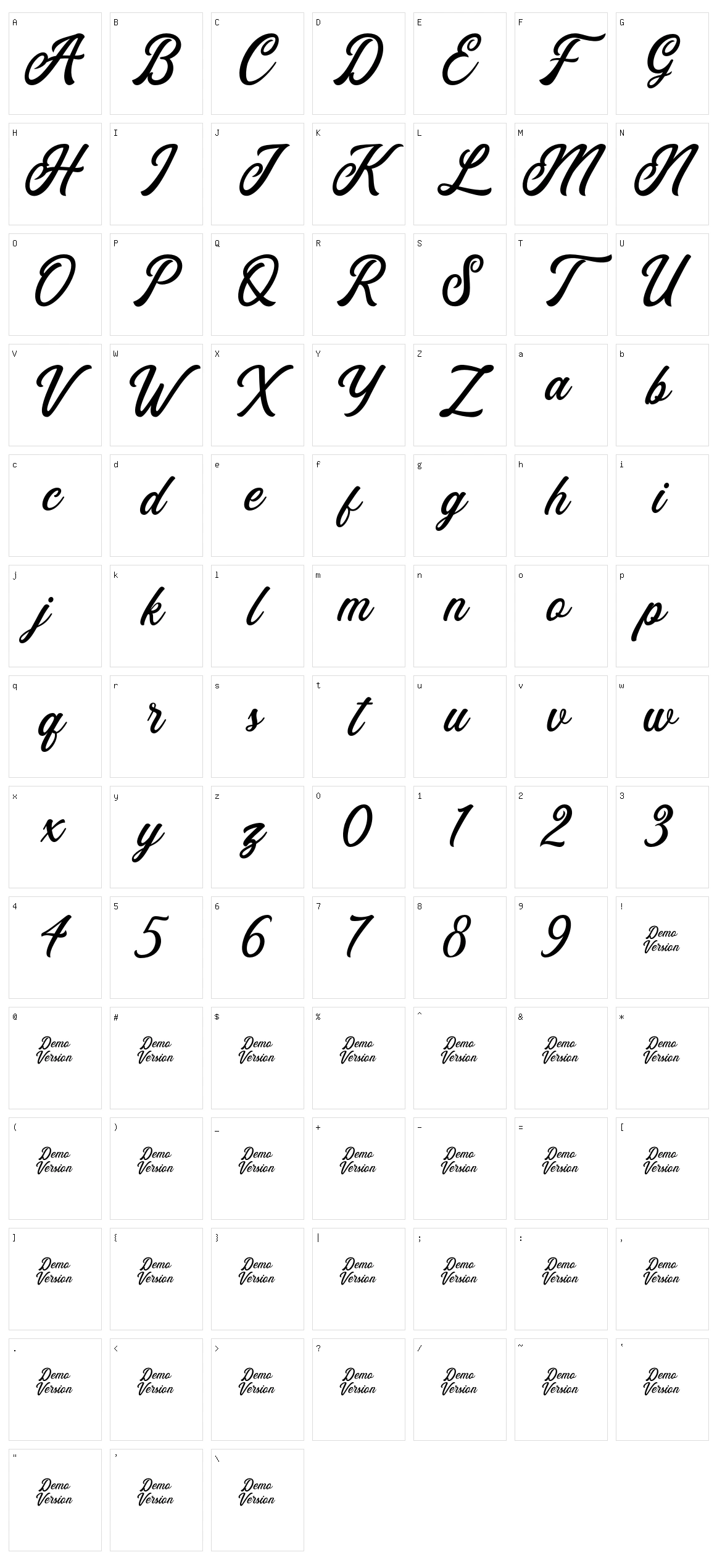
The free font Eusthalia Clean is carefully designed by Ydhra Studio, showcasing a thoughtful balance of creativity and usability and falls under the Script font style. When you download the ZIP file, it contains only 40.27 KB of font files, making it lightweight and quick to download. Please review the license details below to understand permitted usage and distribution rights. If license information is not available, we recommend using this font for personal projects only or contacting the author directly for commercial usage permissions.